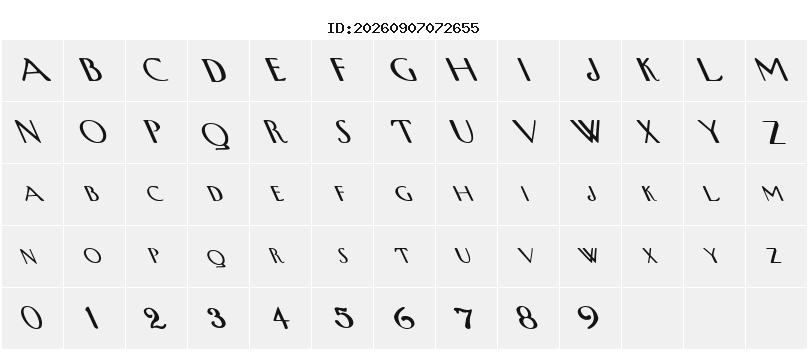
Upp West Extreme Leftis Preview
• Font Name: Upp West Extreme Leftis
• Full Font Name: Upp West Extreme Leftis
• PostScript Name: UppWestExtremeLeftis
About Upp West Extreme Leftis.ttf
Upp West Extreme Leftis.ttf is a modern, elegant sans-serif font designed for ultimate readability and visual harmony. Perfect for branding, headlines, web design, and print materials.